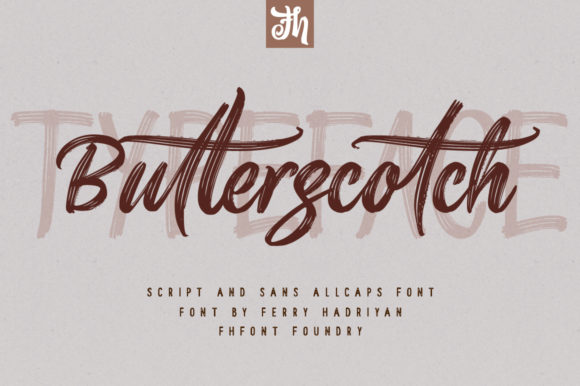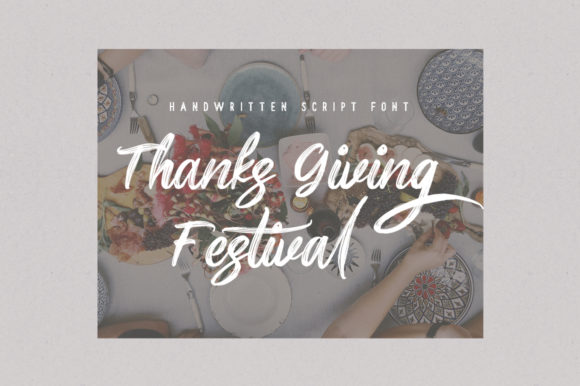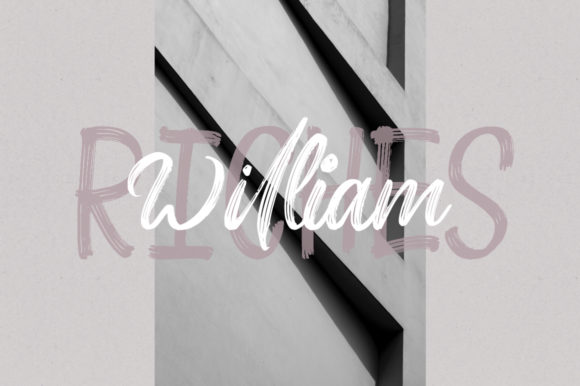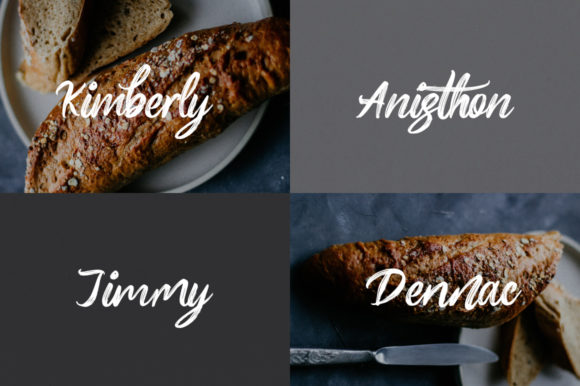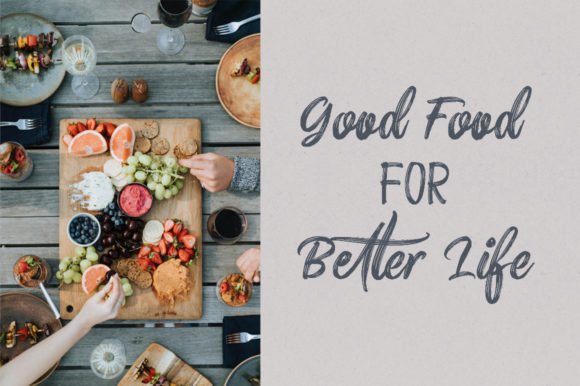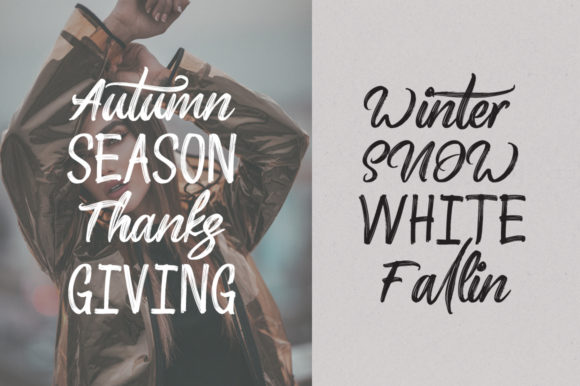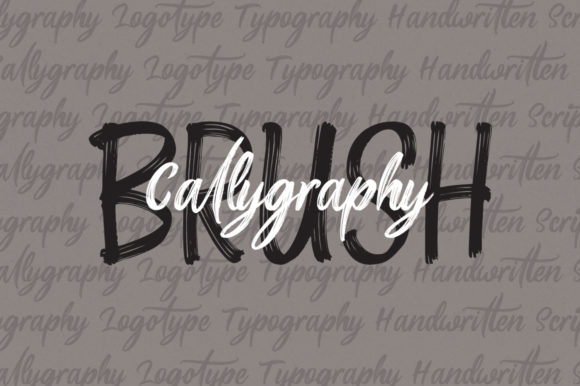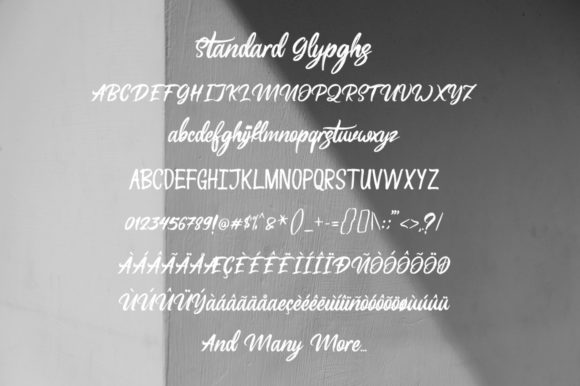
HomeScript FontsButterscotch Font Script Fonts Butterscotch Font FacebookXPinterestWhatsApp Butterscotch Font Poster 2 Butterscotch Font Poster 3 Butterscotch Font Poster 4 Butterscotch Font Poster 5 Butterscotch Font Poster 6 Butterscotch Font Poster 7 Butterscotch Font Poster 8 About Butterscotch Font Butterscotch is a friendly and casual handwritten script font. Get inspired by its welcoming nature! DOWNLOAD ON CREATIVE FABRICAThis font is sold and delivered by Creative Fabrica. Font Canyon may earn a commission if you buy through this link. People also explored Romanhuff Font Coconut Font Awesome Couples Font Moendera Font Hailey Joseph Font Clarette Dior Font Gladiator Sunday Grovy Font Beibyshark Font 305 0 TagsButterscotch Font Previous articleBlackstar FontNext articleAgatha Font LEAVE A REPLY Cancel reply Comment: Please enter your comment! Name:* Please enter your name here Email:* You have entered an incorrect email address! Please enter your email address here Website: Save my name, email, and website in this browser for the next time I comment. Personal Use Free Adelia Font Personal Use Free Read more about this font Dimensional Look71 Personal Use Free Read more about this font Dolce Vita Personal Use Free Read more about this font Catandra Script Personal Use Free Read more about this font BLOG Using Fonts in Digital Marketing: Tips to Strengthen Your Brand Identity In the realm of digital marketing, every visual element plays a crucial role in shaping a brand's identity, and fonts are no exception. The... Top 10 Handwritten Fonts That Elevate Your Designs Free vs Paid Fonts: Why Investing in Premium Fonts Is Worth It To increase your work productivity, choose the most readable fonts.